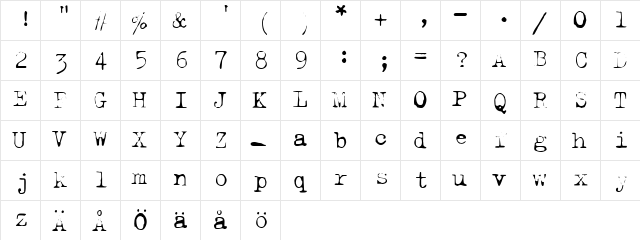
Last Words Thin
Design Context for Last Words Typeface
Last Words is a composed and adaptable typeface that performs quietly and consistently across a wide range of design contexts. The delicate stroke weight brings airiness and refinement to layouts.
Pro Tip: Use Last Words in both headline and body roles to test its range before committing to a single application.